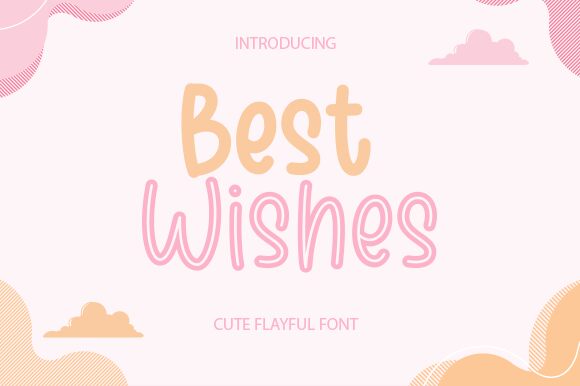
Best Wishes Inline
Welcome to the world of Best Wishes Inline, a handwritten font designed by Risma Ramawi. This charming typeface is perfect for projects that require a personal touch, such as greeting cards, invitations, and social media graphics. Its light weight and semi-condensed width make it easy on the eyes, while its playful style adds a touch of whimsy to any design. Whether you're creating wedding announcements or holiday newsletters, Best Wishes Inline is sure to add a warm and welcoming tone to your project. So go ahead and spread some cheer with this delightful font!